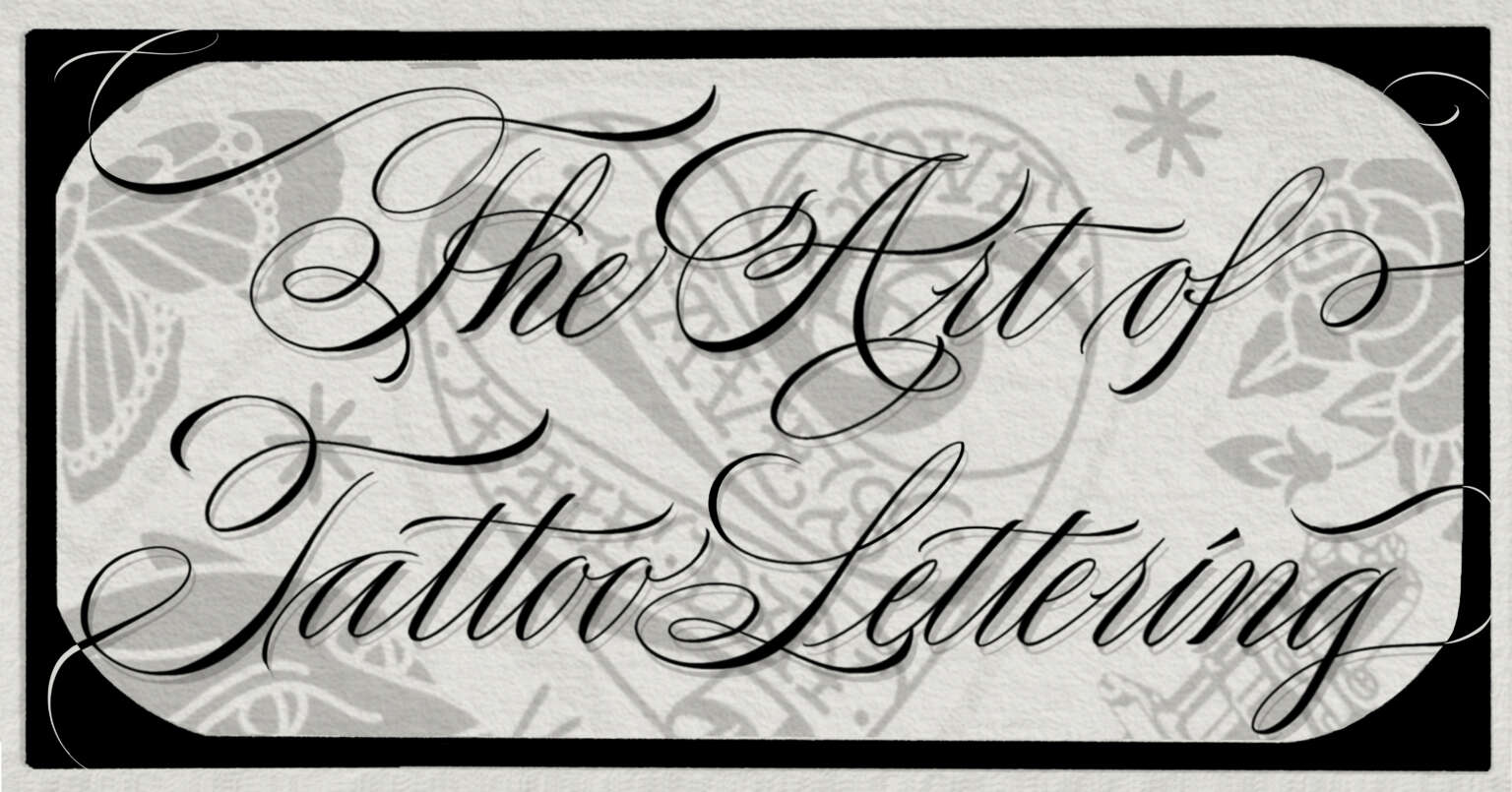
The Art of Tattoo Lettering
with Jessie Fora
A great tattoo deserves great lettering! Refine your skills as a tattooer or designer and create ink that lasts a lifetime.
The Art of Tattoo Lettering explores the foundations of the Script, Pike, and Blackletter styles, tracing their origins, structure, and lasting influence on tattooing. Through historical context and application, you'll gain a deeper understanding of where these letter styles came from, why they evolved the way they did, and how they've become essential parts of tattoo culture.
We'll examine the anatomy of letterforms, discuss valuable references, and cover techniques for refining lettering specifically for tattoo design. Rather than simply copying existing styles, you'll learn how to build stronger, more intentional lettering that holds up visually on the body and communicates with clarity.
This workshop is designed to help you understand how lettering shapes the visual language of a tattoo while creating a meaningful emotional connection between the artwork and the wearer. Whether you're designing a single word or a fully custom composition, thoughtful lettering can elevate a tattoo from decoration to storytelling.
Perfect for tattooers looking to expand/refine their skill set or designers creating custom lettering for tattoo clients, this workshop will give you practical tools, historical insight, and a stronger foundation for creating timeless tattoo lettering with confidence!